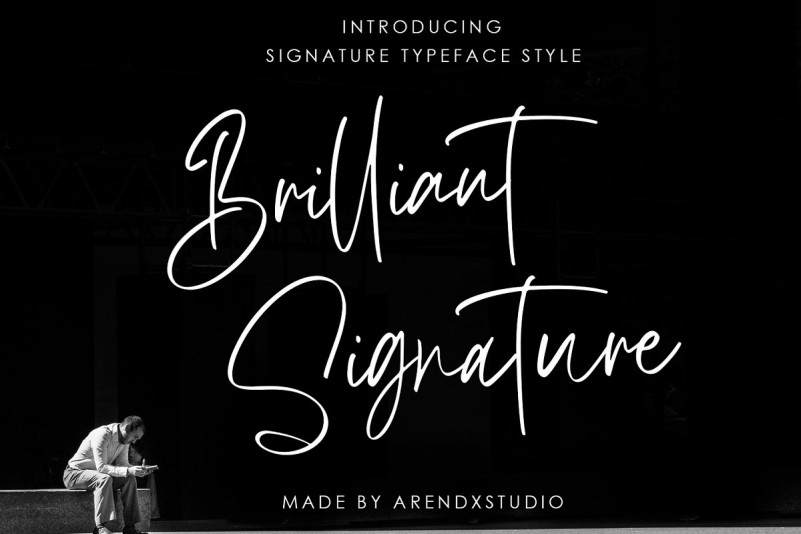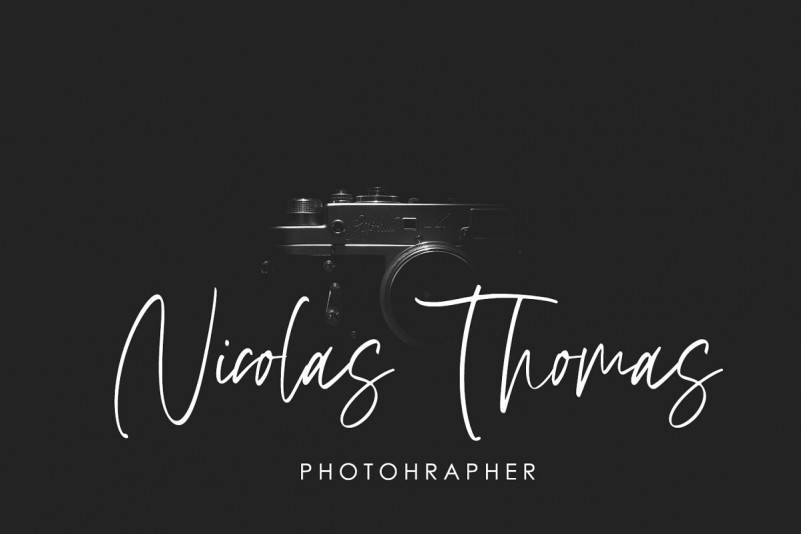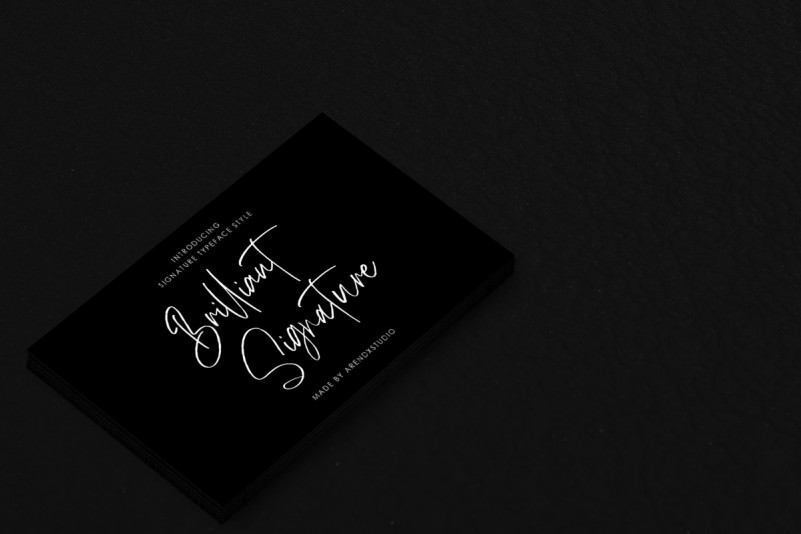
Brilliant Handwritten – Free Demo
Thank you for looking Brilliant Font. This is a signature style font designed for logos & branding or editorial spreads. It is designed and shared by Arendxstudio. Brilliant Handwritten, a signature font which is very elegant and modern for you to use and your design interests be it for logos, branding names, posters, podcasts and so on. This is perfect for you all.